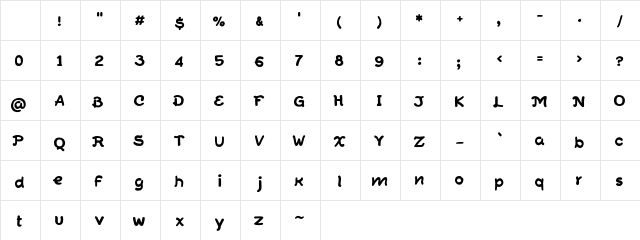
Complete working_right_now Regular glyph index. Displaying only characters natively supported by working_right_now Regular font.
working_right_now is a composed and adaptable typeface that performs quietly and consistently across a wide range of design contexts.